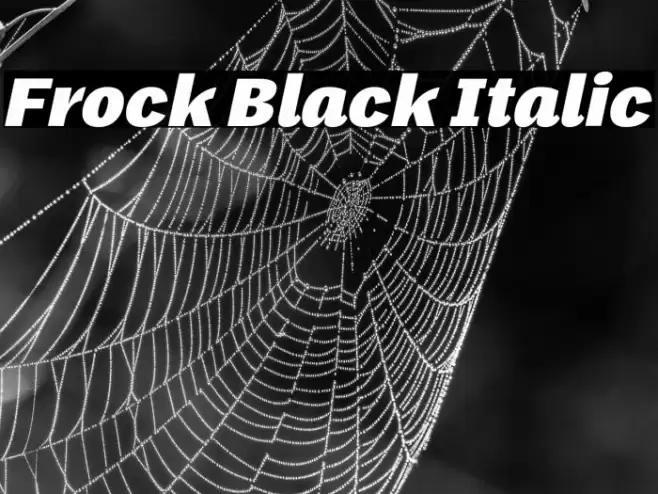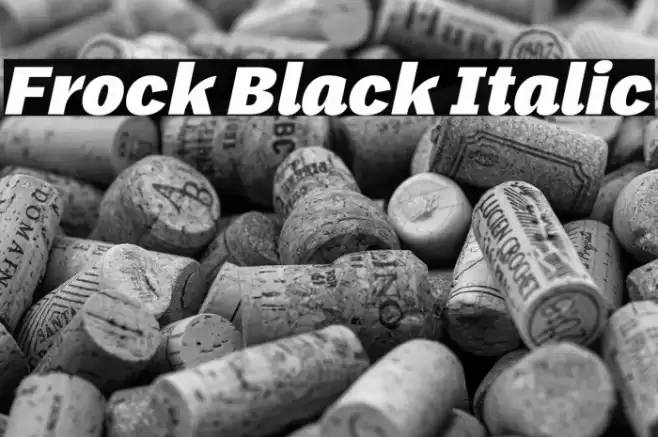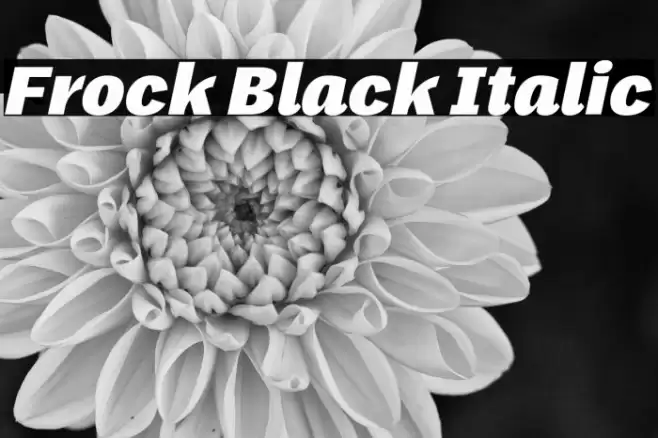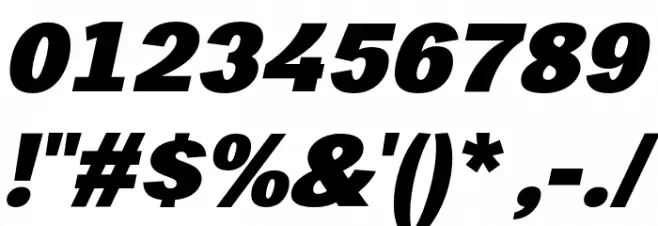
Frock Black Italic Font
Frock Black Italic Description
This font features a bold and dynamic style with a strong italic slant, giving it a sense of motion and energy. The characters are robust and impactful, making it ideal for attention-grabbing headlines and titles. The uppercase letters are particularly striking, with a uniform thickness that enhances their bold appearance. The lowercase letters maintain the same boldness, ensuring consistency across different text elements. The numerals are clear and prominent, suitable for display purposes. Special characters are well-defined, adding versatility to the font's use.
A bold, italic font with a dynamic and energetic style from Uncategorized fonts.
- Proposed Projects: Ideal for headlines, posters, advertisements, and branding materials that require a strong visual impact.